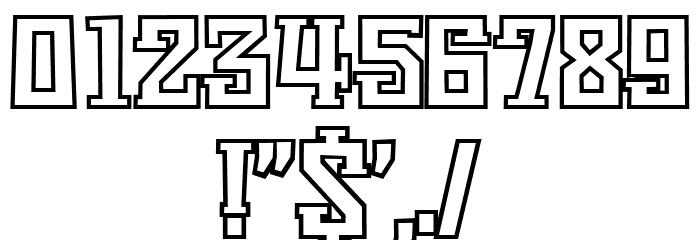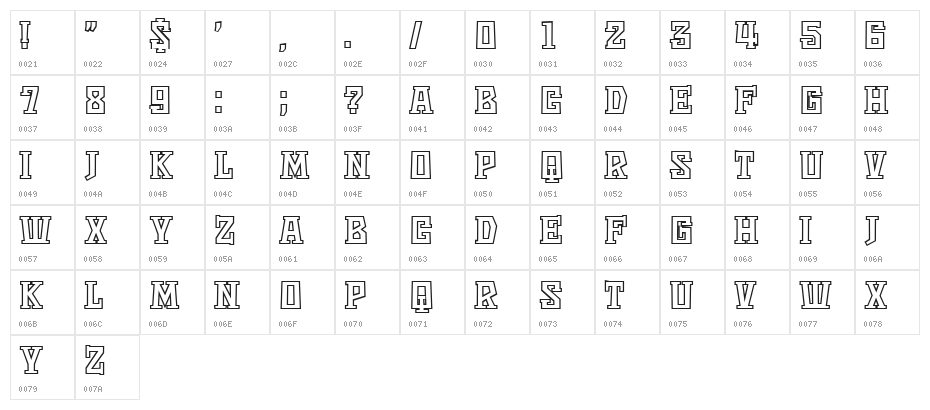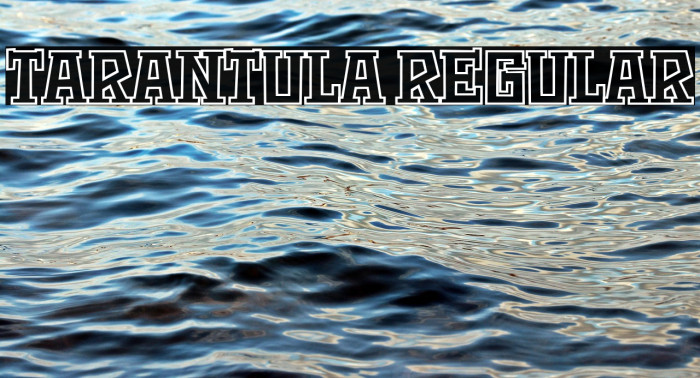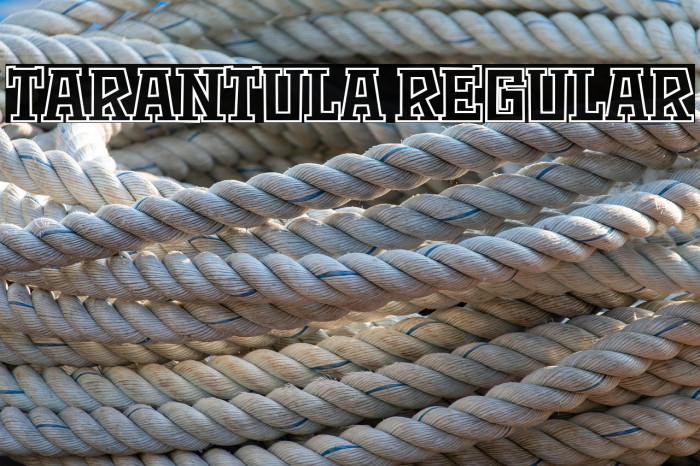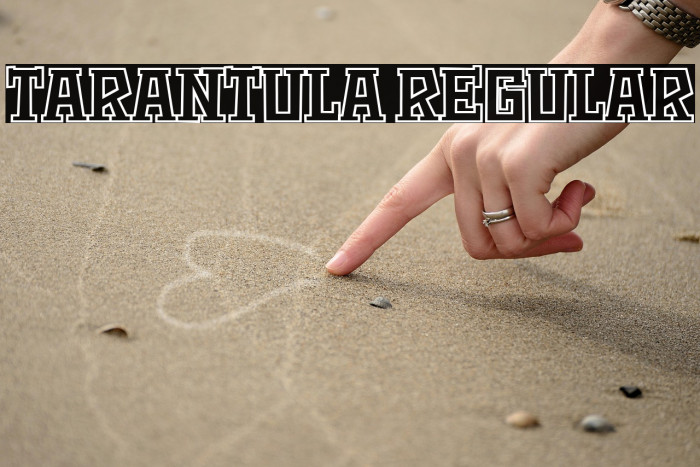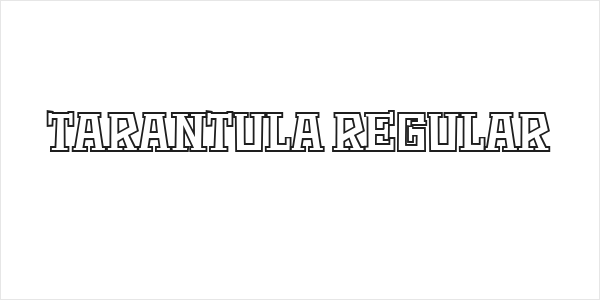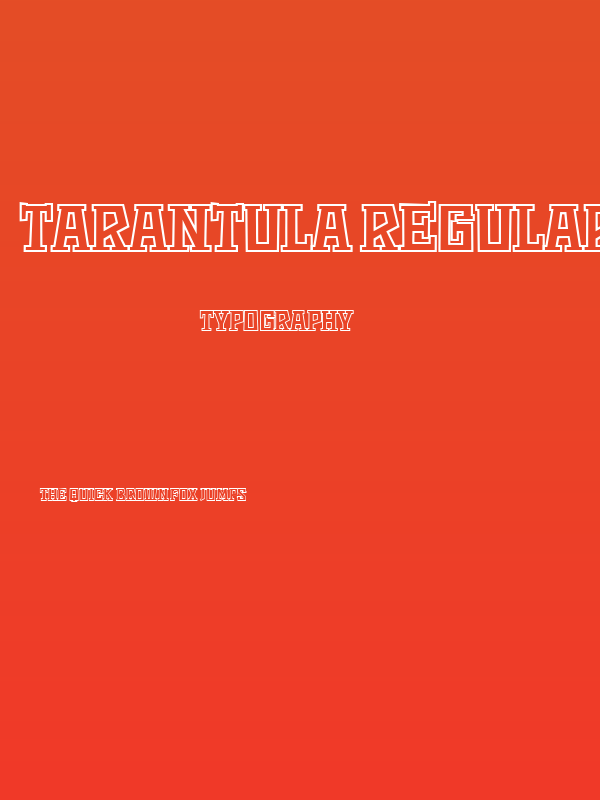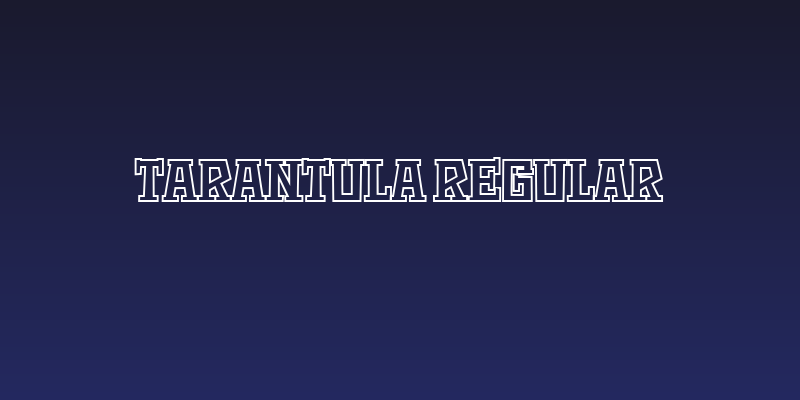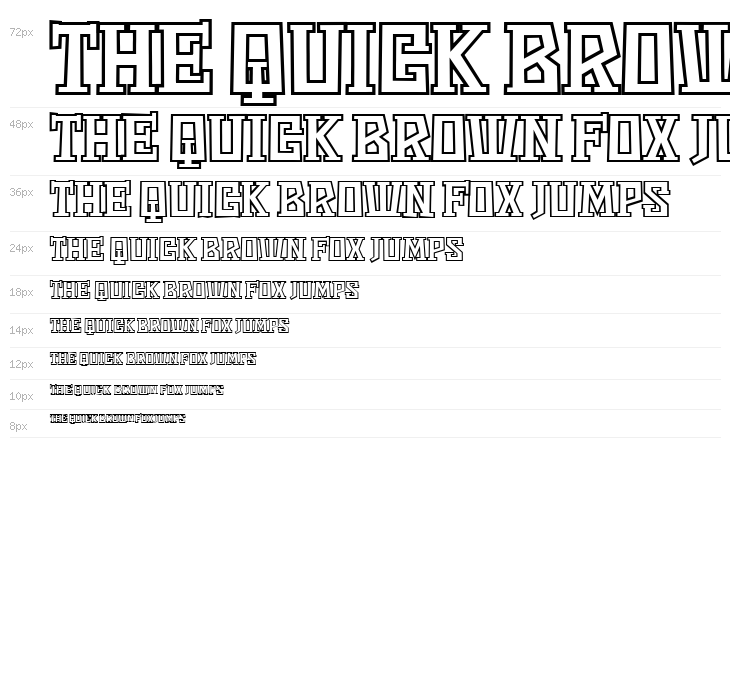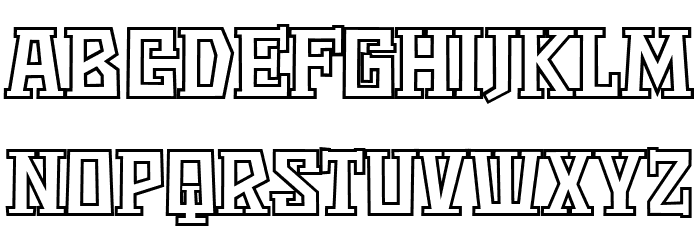
Tarantula Regular Font
Tarantula Regular Description
This font features a bold, decorative style with a strong presence. Each character is outlined, creating a striking visual effect that enhances readability while maintaining a unique aesthetic. The uppercase and lowercase letters share a consistent design, with sharp angles and geometric shapes that give the font a modern, edgy look. The numbers and special characters are equally bold and well-defined, ensuring uniformity across all text elements. This font's distinct style makes it ideal for projects that require a standout typeface.